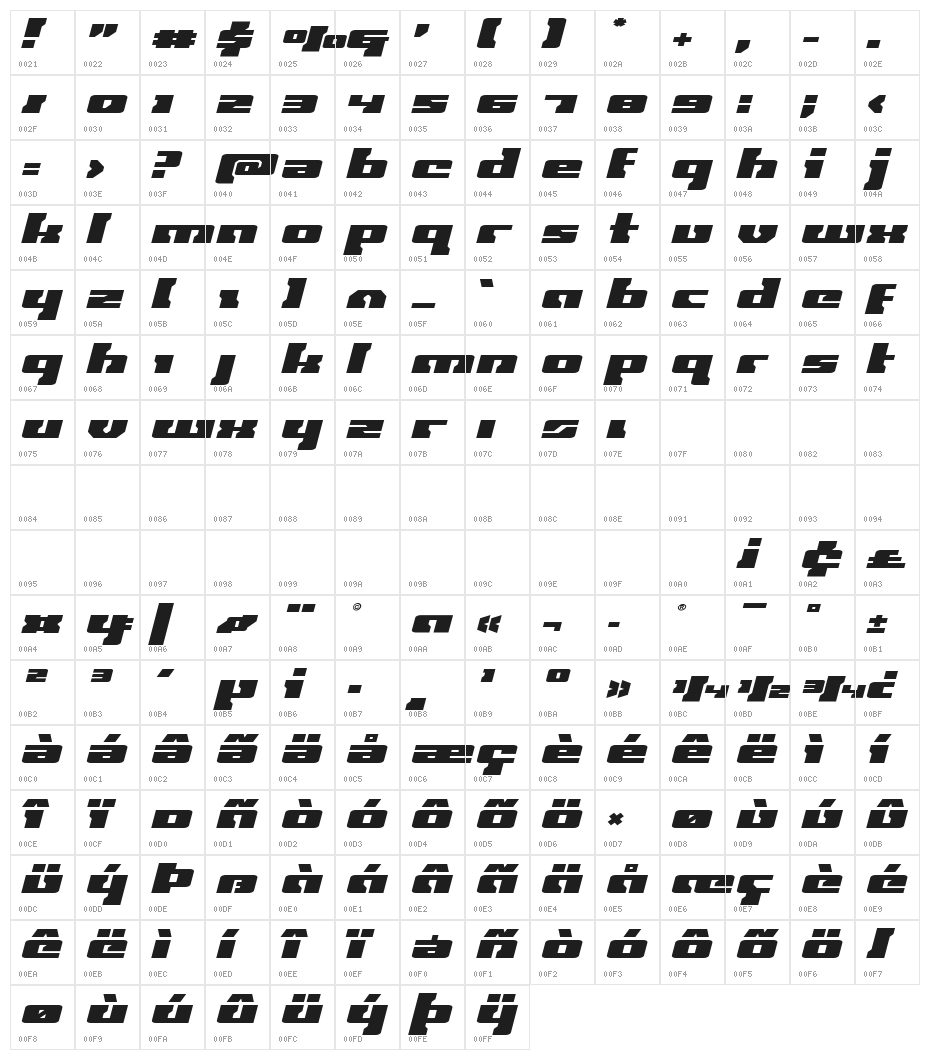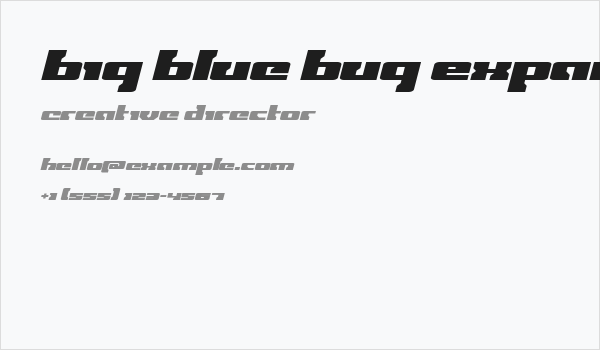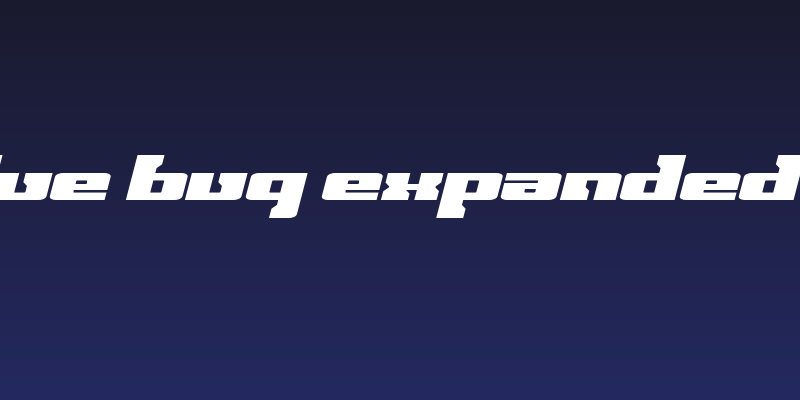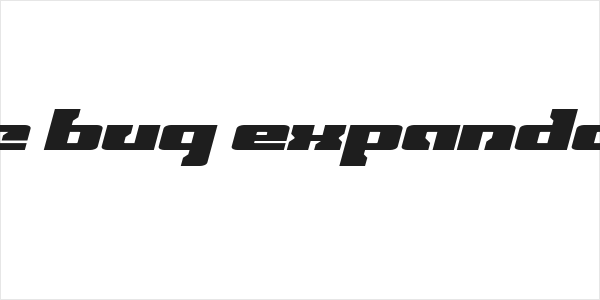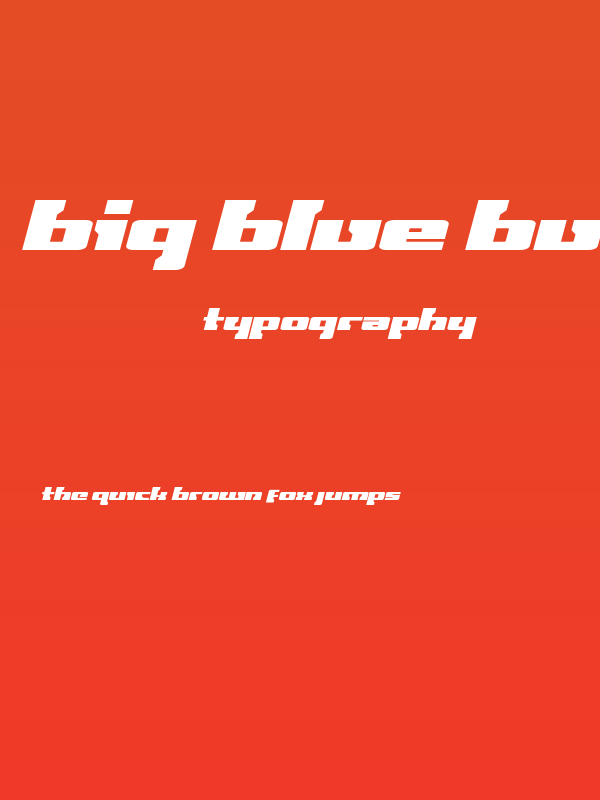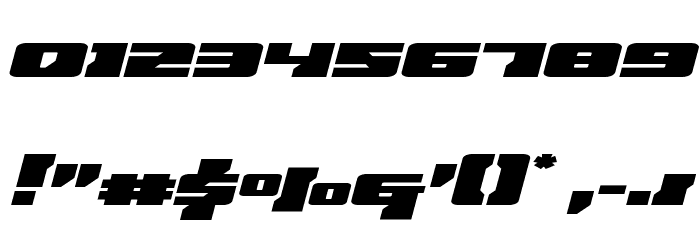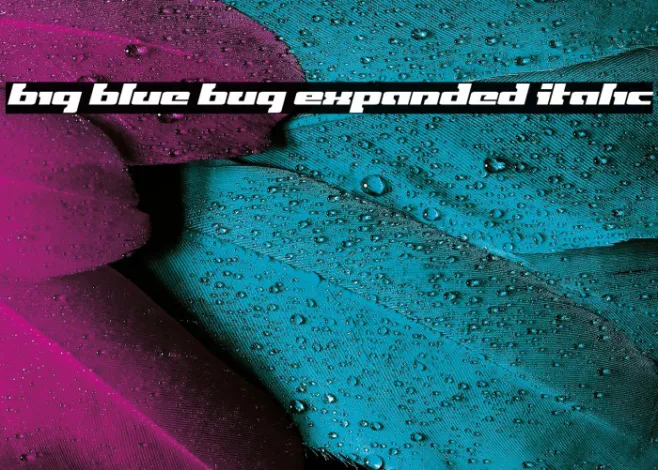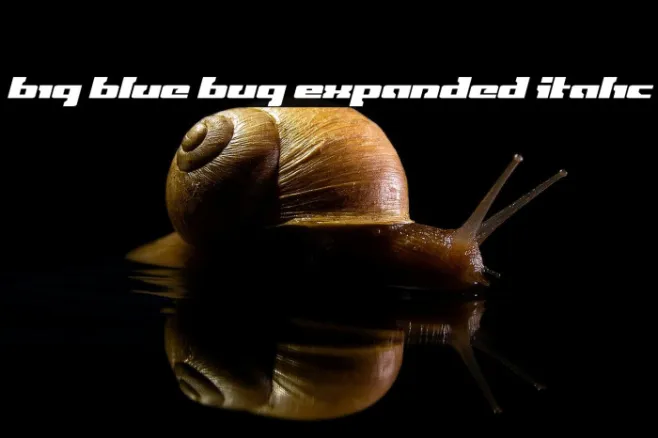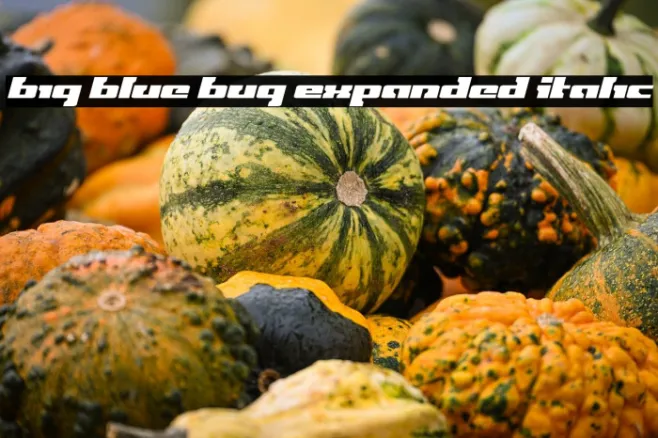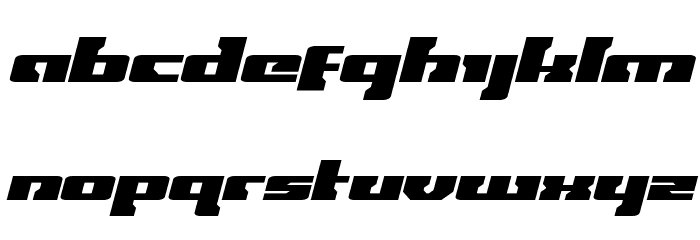
Big Blue Bug Expanded Italic Font
Big Blue Bug Expanded Italic Description
This font features a bold and dynamic design with a distinctly modern and futuristic aesthetic. The characters are italicized, giving a sense of motion and speed. The strokes are thick and consistent, providing a strong visual impact. The overall style is geometric with sharp angles and clean lines, making it suitable for attention-grabbing headlines or branding. The uppercase and lowercase letters maintain a uniform height, contributing to a cohesive look. The numbers and special characters are equally bold, ensuring they stand out in any context.
| Proposed Projects | Ideal for sports branding, tech logos, dynamic posters, and futuristic designs. |